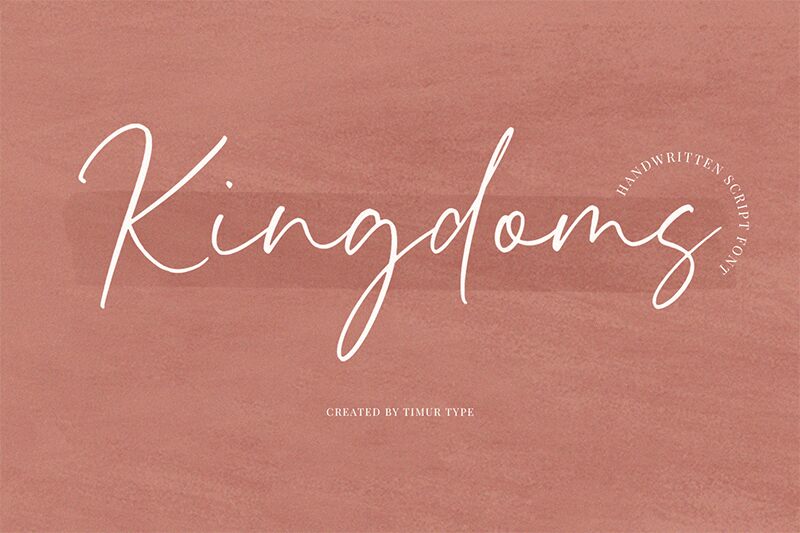
Kingdoms
Kingdoms, designed by Timur Type, is a font that exudes elegance with its extra-light weight and delicate handwritten style. Its gentle curves and fine lines mimic the grace of traditional calligraphy, bringing a personal touch to every design. The artistic nature of Kingdoms is evident in its flowing ascenders and descenders, which add an organic character to the text.
The versatility of Kingdoms lies in its ability to marry the charm of handcrafted script with modern minimalism. This makes it an exceptional choice for branding projects, wedding invitations, editorial layouts, and any creative work where a touch of sophistication is desired. The font's airy composition ensures that it remains legible even at smaller sizes while making a statement when used in larger displays.
With Kingdoms, designers can craft visually appealing messages that resonate with warmth and authenticity. Its unique aesthetic appeal makes it not just a typeface but an artistic asset for an array of design applications.